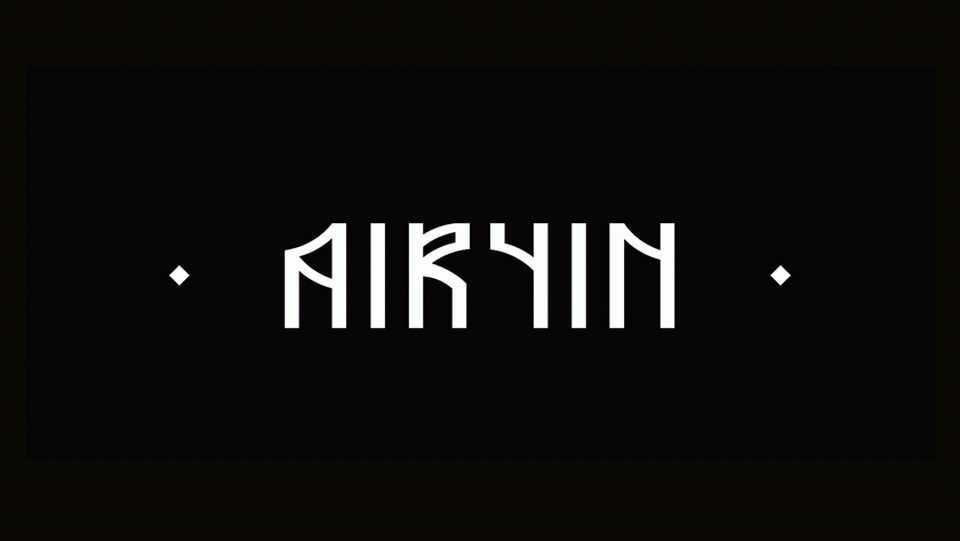
Download Airyin font, an authentic display typeface inspired by old style alphabet. Airlyn font looks perfect for unique logos and brandings, posters, covers and other creative artworks.
Designer: The Arcanist